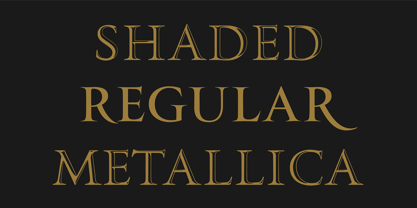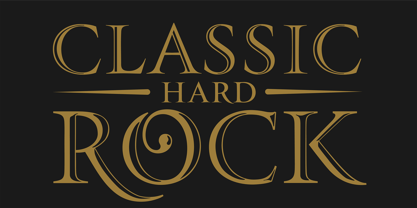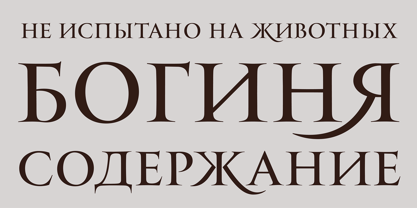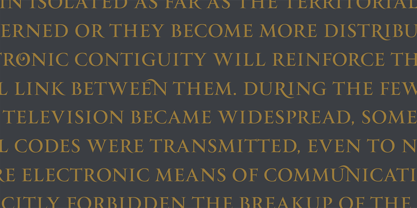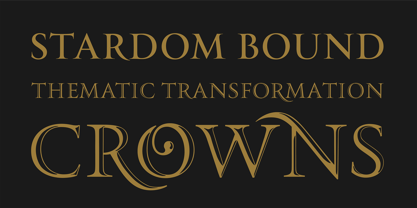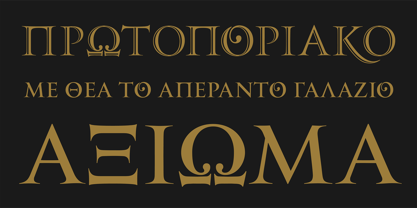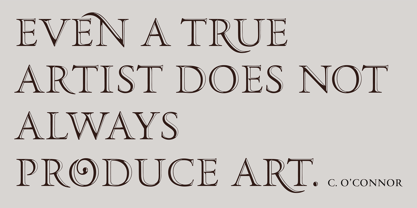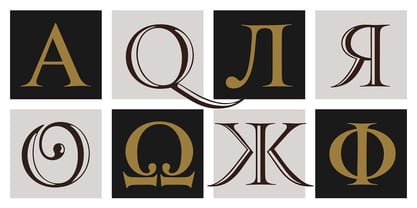
PF Monumenta™ Pro
by Parachute
The PF Monumenta Pro Font Family was designed by Panos Vassiliou and published by Parachute. PF Monumenta Pro contains 3 styles and family package options. More about this family
Royal, majestic, elegant. These letters are based on Roman and Greek characters carved on stone. They come in 3 different styles. Normal and Shaded are designed to have serifs with a finer thinning. On the other hand, Metallic is bolder and simulates in the most realistic way three-dimensional metallic lettering. There are some alternate characters placed at lowercase positions as well as a few stylistic alternates which are accessed through the OpenType features. Pay attention to letters like Greek Omega (lowercase position) and Greek Xi (lowercase position) as well as B, R, K (lowercase position). Monumenta Pro was recently upgraded to support Latin, Greek and Cyrillic.